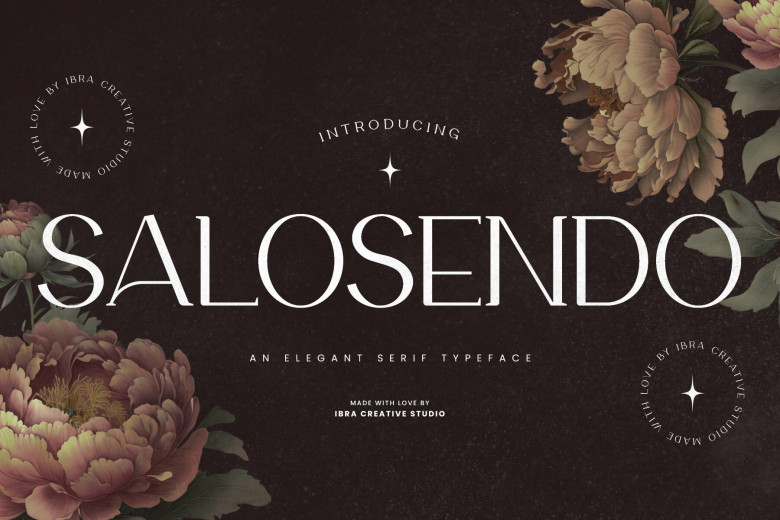
Salosendo Font
Salosendo is an elegant serif font evoking sophistication and grace with every stroke. Boasting graceful letterforms and balanced proportions, its elegant letterforms add a touch of chic sophistication to any design project.
The delicate serifs evoke past while remaining contemporary, letter spacing between letters has been carefully calibrated to enhance readability, making Salosendo ideal for editorial branding or elegant invitations layouts.
Salosendo Serif Font